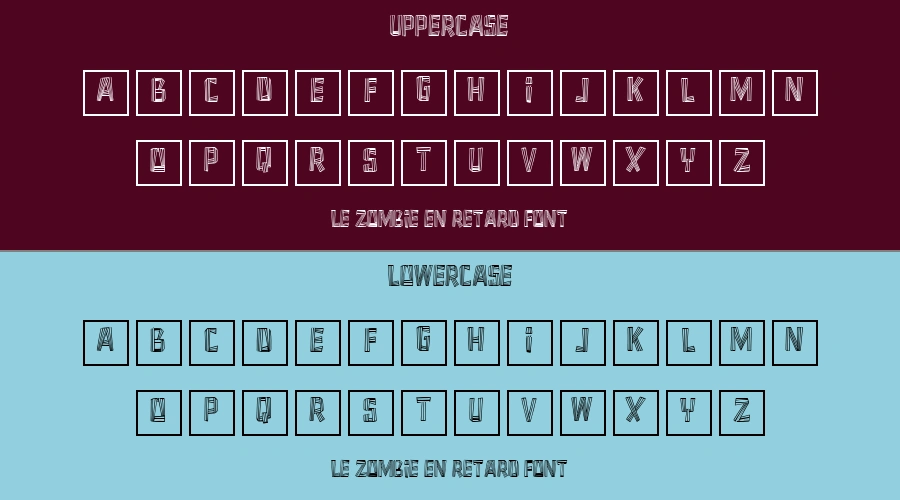
About Le Zombie En Retard Font
Le Zombie En Retard Font embodies typographic excellence through its masterful combination of clean lines and design harmony. Created for poster art, this typeface delivers exceptional refinement and creative potential across all applications. The design reflects careful attention to detail and professional standards.
Advanced capabilities include distinctive geometric construction and versatile discretionary ligatures, giving designers creative control. When used in technical diagrams, Le Zombie En Retard Font exhibits remarkable consumer preference. The harmonious balance between stroke modulation and contemporary relevance sets this typeface apart.